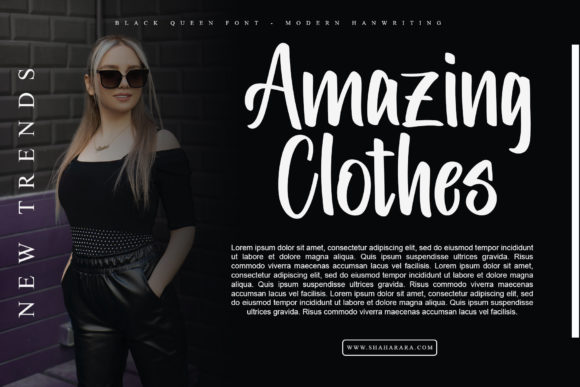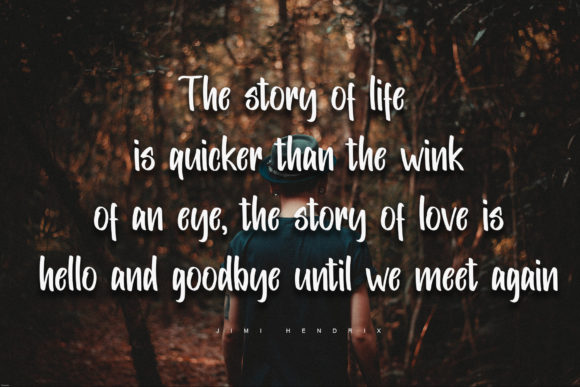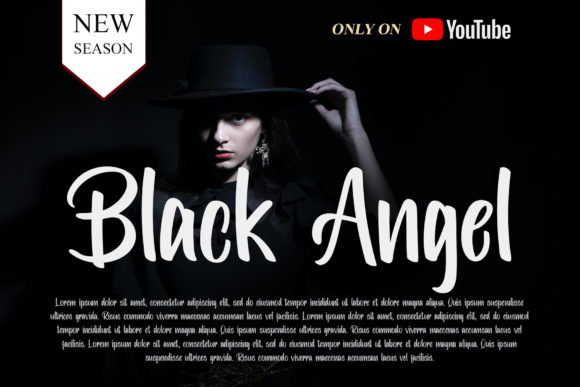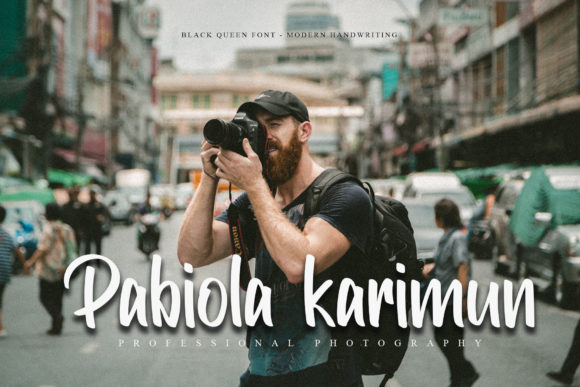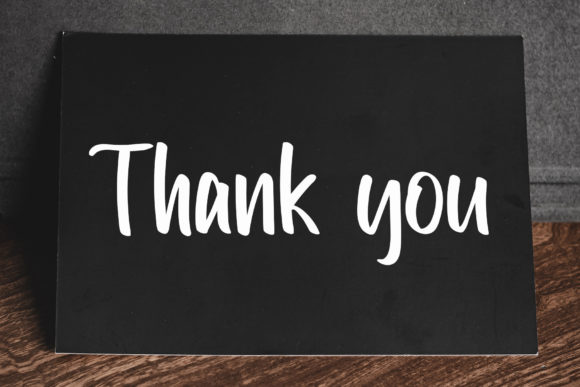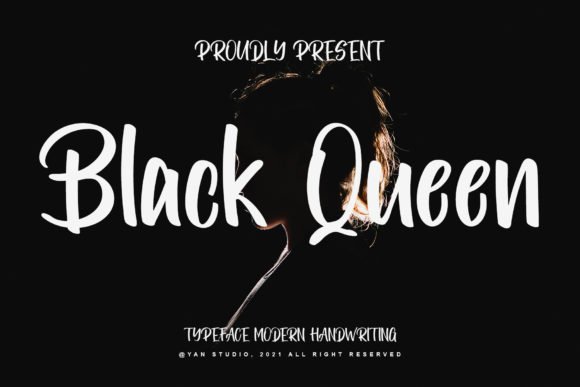
The Perfect Script: Unlocking the Beauty of the Black Queen Font
Imagine you’re working on a special project – a wedding invitation, perhaps, or a branding campaign for a high-end fashion brand. You’re browsing through font options, searching for that elusive ‘wow factor.’ Suddenly, you stumble upon the Black Queen Font, and it’s love at first sight. Its elegant curves and refined lines transport you to a world of sophistication and style.
The Black Queen Font is a masterclass in script font design, perfect for adding a touch of luxury to any project. Its versatility makes it ideal for logos, invitations, stationery, and social media posts, among many other applications. For designers, the Black Queen Font is a valuable asset, offering a unique opportunity to elevate their work and stand out in a crowded market.
Key Features of Black Queen Font
- Font Family: Black Queen is a script font family designed to resemble elegant handwriting.
- Unique Characteristics: The font features unique, flowing connections between letters, giving it a distinctive and elegant appearance.
Designer Review: Black Queen Font
Overall, the Black Queen Font is a stunning addition to any design project. It’s a great choice for those looking to add a touch of elegance and sophistication to their work. ✨ The font’s bold lines and sharp edges give it a dramatic flair that’s sure to grab attention.
- ✨ Elegant and sophisticated design that’s perfect for luxury brands or high-end products
- ✨ Excellent for use in titles, headings, and other prominent text elements
- ✨ Supports both uppercase and lowercase characters, as well as various punctuation marks
- ⚠️ Limited font size options, which can make it challenging to read at smaller sizes
- ⚠️ Some characters may appear slightly distorted or pixelated at lower resolutions
- ⚠️ May not be suitable for use in body text or large blocks of text due to its bold and dramatic design
In conclusion, the Black Queen Font is a great choice for designers looking to add a touch of luxury and sophistication to their work. While it has some limitations, its unique design and elegance make it a great addition to any design project.
Use the Black Queen Font to create a bold and dramatic effect. It pairs well with bold colors and geometric shapes. To get the most out of it, experiment with different font sizes and combinations to create a unique look.
The Black Queen Font is commonly used in:
– Fashion branding and advertising
– Luxury product design
– Editorial and publishing
– Event invitations and promotional materials
Alternatives to Black Queen Font for Designers
Carolyna Pro is a luxurious serif font that exudes elegance and sophistication. It is ideal for use in high-end branding, luxury goods, and premium products where a touch of sophistication is required.
Comparison to Black Queen Font: Carolyna Pro has a more refined and polished look, making it suitable for more upscale applications. It lacks the bold, dramatic flair of Black Queen Font but offers a more subtle and sophisticated alternative.
Great Vibes is a modern calligraphy font that adds a touch of whimsy and personality to designs. It is perfect for use in creative fields such as advertising, packaging, and social media where a fun and playful tone is required.
Comparison to Black Queen Font: Great Vibes has a more fluid and expressive look, making it suitable for designs that require a touch of personality. It lacks the bold, dramatic flair of Black Queen Font but offers a more playful and creative alternative.